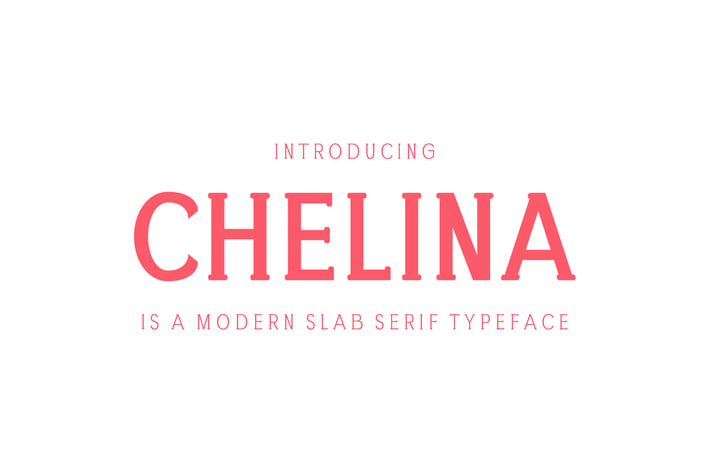
Chelina Slab Serif Font Family
Chelina is a clean and creative slab serif typeface with strong personality & wide choice of weights. It includes uppercase, lowercase, number, punctuation, symbols, with non-english characters. Basel makes it perfect for logo, greeting cards, posters, branding, name card, stationary, design title, blog header, quotes, typography, headlines, packaging, presentations, titles, magazines, headings, web layouts, advertising, invitations, packaging design, books, and nearly any creative design.
Included Features:
- Font Weight: Regular, Light, Thin, Medium, and Bold
Chelina Font Features:
- Uppercase Multilingual Letters
- Lowercase Multilingual Letters
- Numbers and Punctuation
- Non English Characters ( Latin Supplement + Latin Extended A)